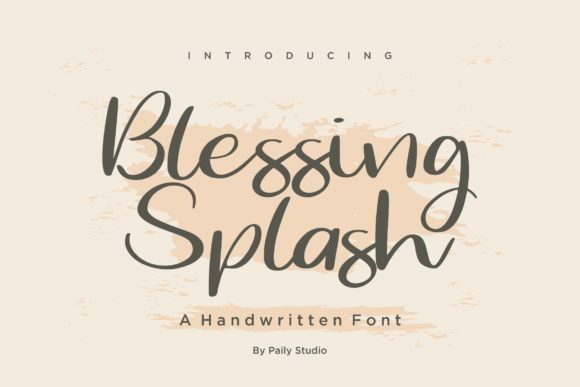
The Blessing Splash Font: A Whimsical Script to Elevate Your Designs
I’ll never forget the time I was working on a project for a client who wanted a font that was both playful and elegant. I had spent hours scouring the internet for the perfect match, but nothing seemed quite right. That was until I stumbled upon the Blessing Splash font. With its relaxed theme and lovely style, it was the perfect fit for my client’s project. And let me tell you, it’s been a game-changer for my design library ever since.
An Honest Review of Blessing Splash
- ✅ The whimsical script style that adds a touch of personality to any design
- ✅ The relaxed theme that makes it perfect for a wide range of projects, from wedding invitations to blog posts
- ✅ The ease of use, even for those who are new to working with script fonts
- ✅ The versatility – it pairs well with both bold and delicate design elements
- ⚠️ Some of the letters may appear a bit cramped when used at smaller sizes, so be sure to adjust the tracking accordingly
- ⚠️ The font may not be suitable for very formal or traditional designs, as it has a distinctly playful feel
One of the best things about the Blessing Splash font is its OpenType features and glyphs. These allow you to add even more personality to your text, making it truly unique. Some of the features you can explore include:
- Stylistic alternates: These allow you to swap out certain letters or characters for alternative versions, giving your text a more custom feel
- Glyphs: These are special characters that can be used to add decorative elements to your text, such as flourishes or swashes
- Ligatures: These are combinations of letters that are replaced by a single character, creating a more fluid and natural look
The Story Behind Blessing Splash
The Blessing Splash font was designed by a team of creatives who wanted to create a font that was both playful and elegant. They drew inspiration from a variety of sources, including handwriting, calligraphy, and traditional script fonts. The result is a font that is both unique and versatile, perfect for a wide range of design projects.
Q: Is the Blessing Splash font suitable for body text?
A: While the Blessing Splash font is beautiful for headings and titles, it may not be the best choice for body text due to its script style and potential cramping at smaller sizes.